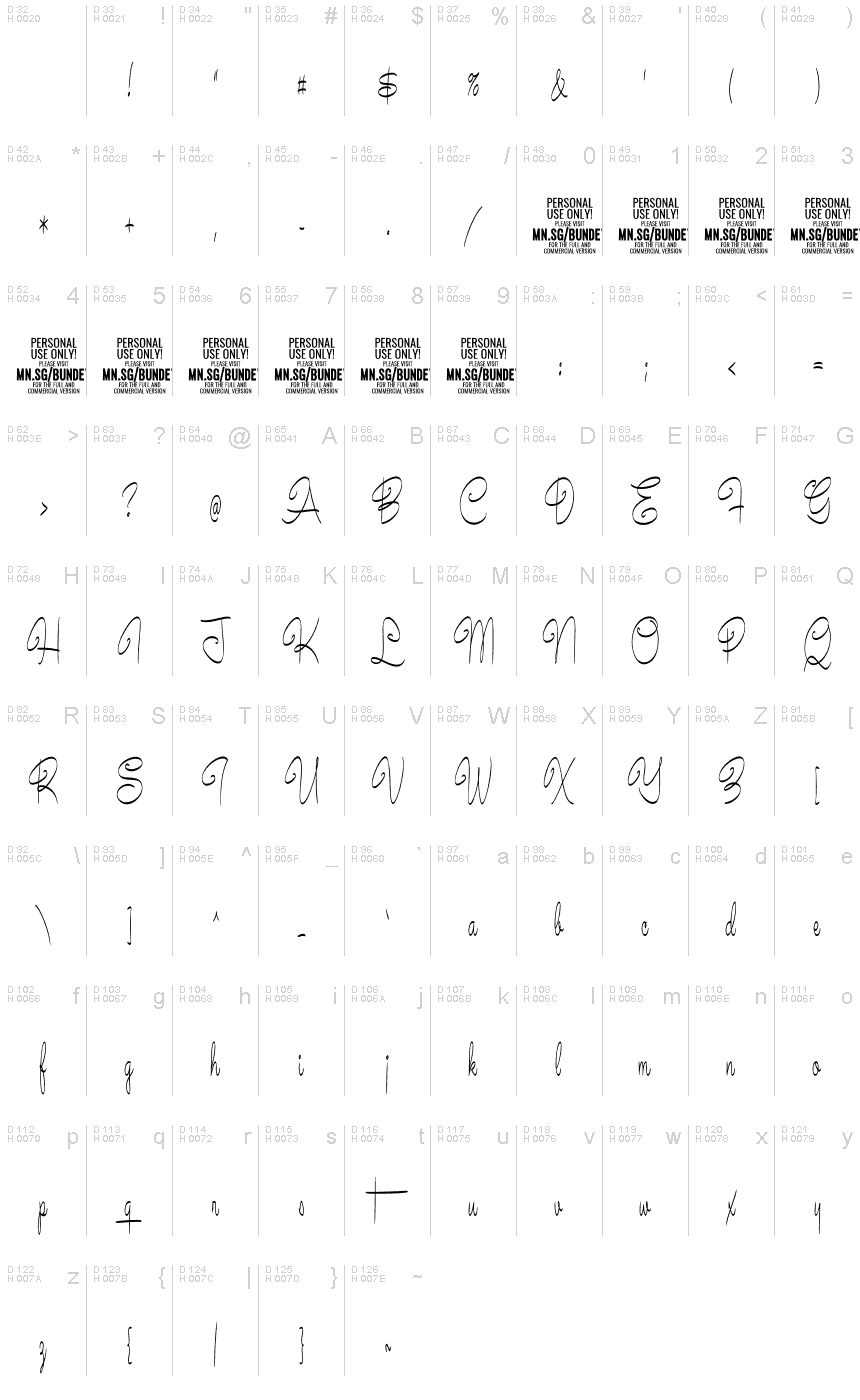
Bundey Script PERSONAL USE Bold
Bundey Script Bold is a stunning curly script font designed by Mans Greback. With its extra-light weight and condensed width, Bundey Script Bold is perfect for adding a touch of elegance to your designs without overpowering them. This font is versatile and can be used on a variety of projects, including wedding invitations, greeting cards, logos, and more. Its boldness adds character to headlines while its script style exudes sophistication. If you're looking for a font that can make an impact in your designs while still maintaining that elegant edge, Bundey Script Bold is the perfect choice!